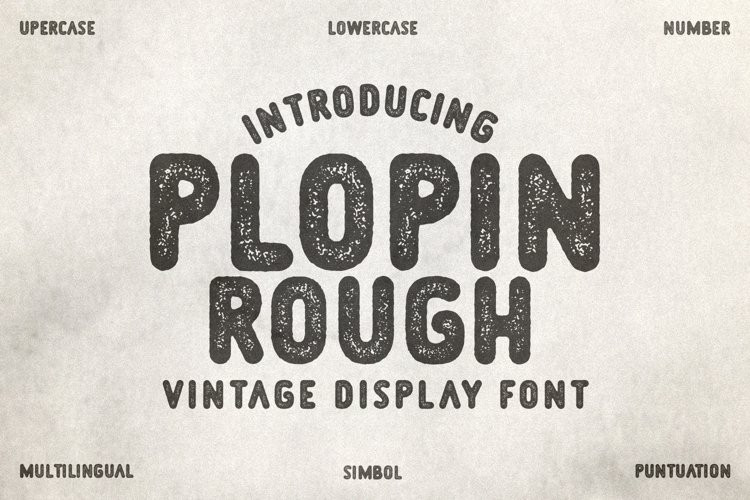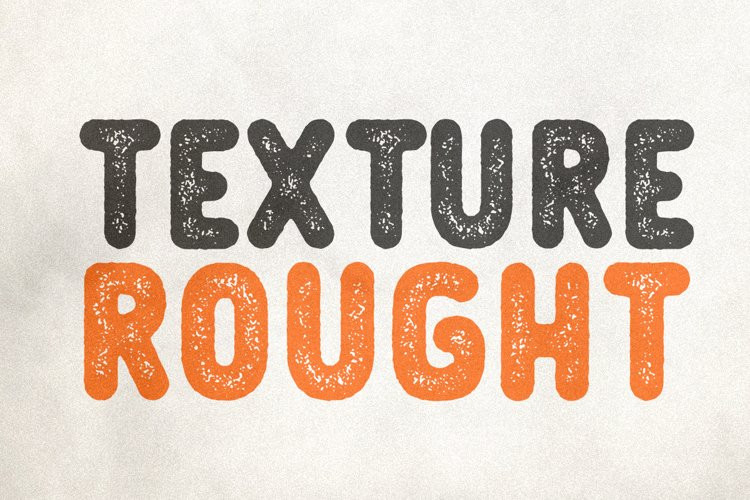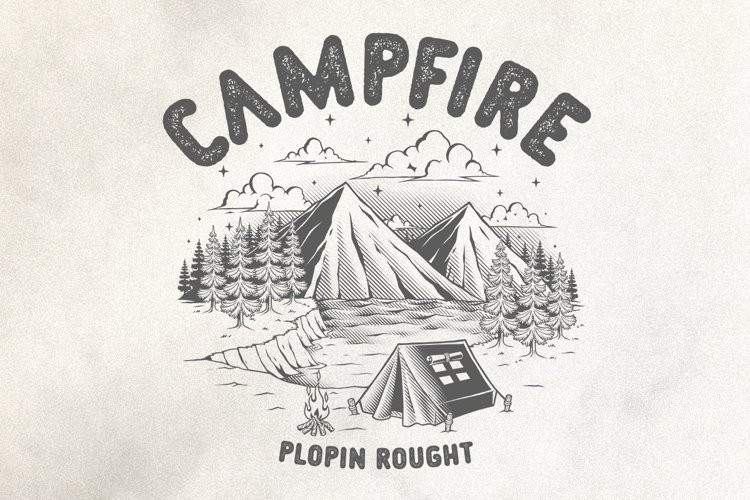
Plopin Rough Font
Plopin Rough FontIntroducing the font Plopin Rough is the perfect vintage typeface, with a texture rough, font It’s great for all kinds of projects that need that perfect vintage and retro touch, such as video game titles, posters, clothes, album covers, movies, etc.